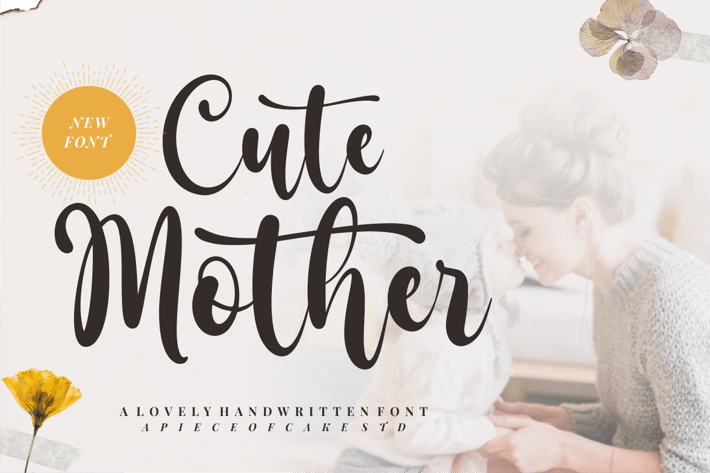
Cute Mother - A Script Font
Introducing, Cute Mother is a lovely, stylish, and gorgeous script font suitable for your design project needs, such as; wedding themes, valentine's themes, mother's day themes, social media posts, quotes, overlays on images, tagline logos, posters, print needs, website banners, and more.
A set of uppercase and lowercase glyphs
Number, symbol, and punctuation
Some alternate and ligature